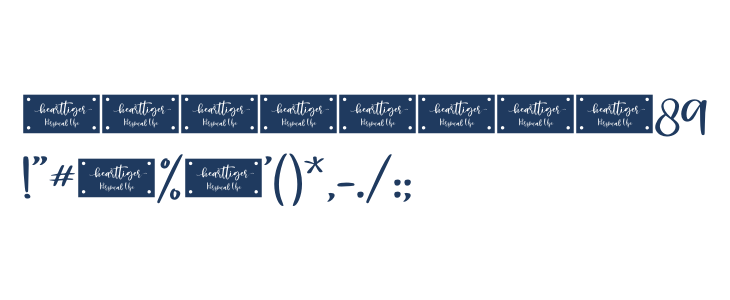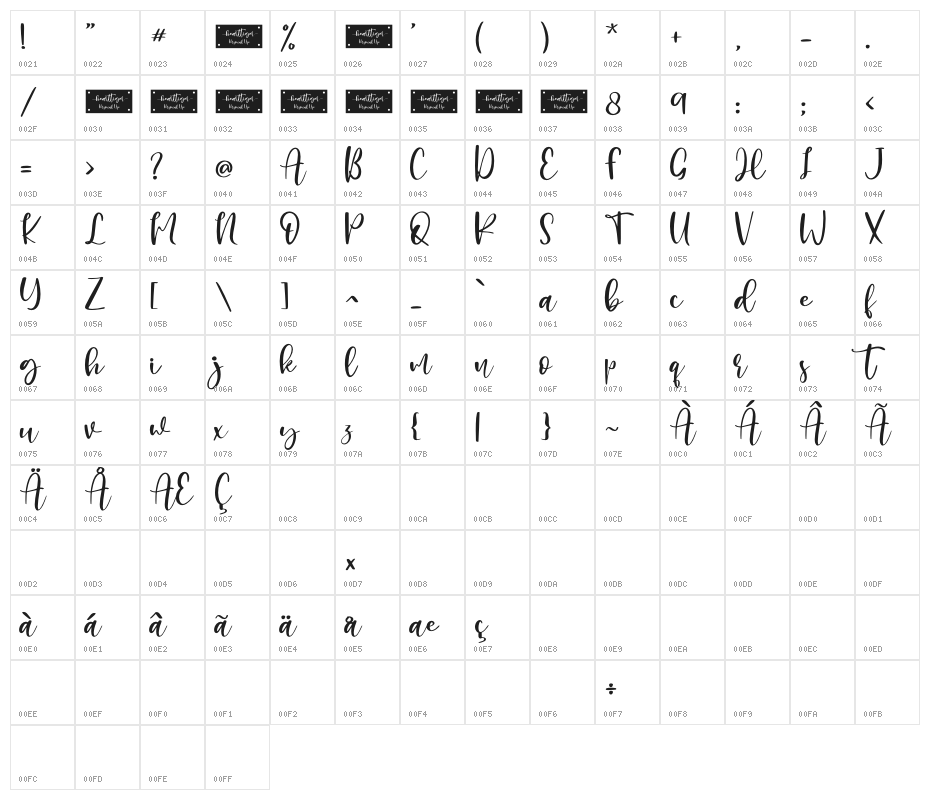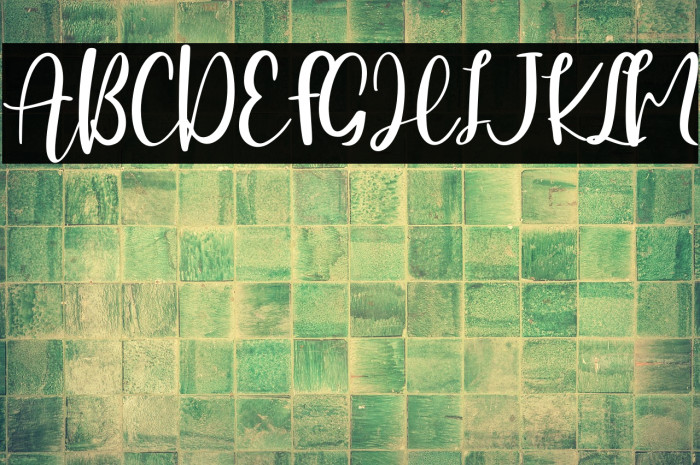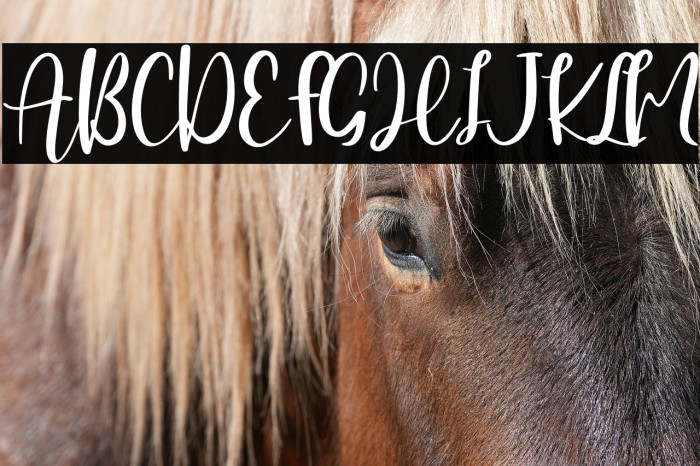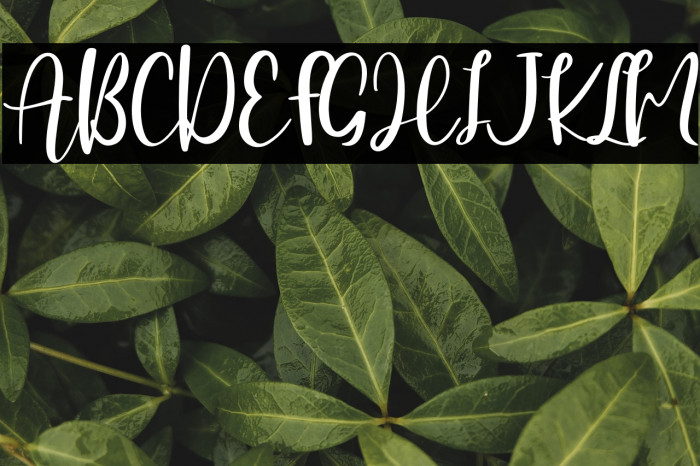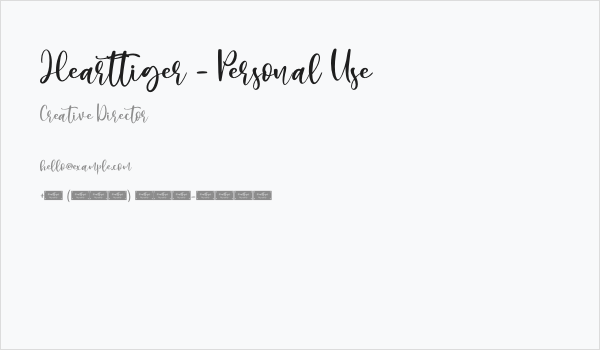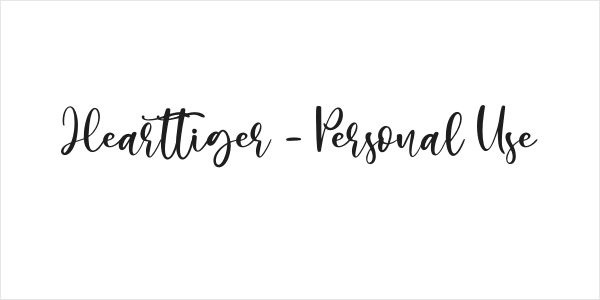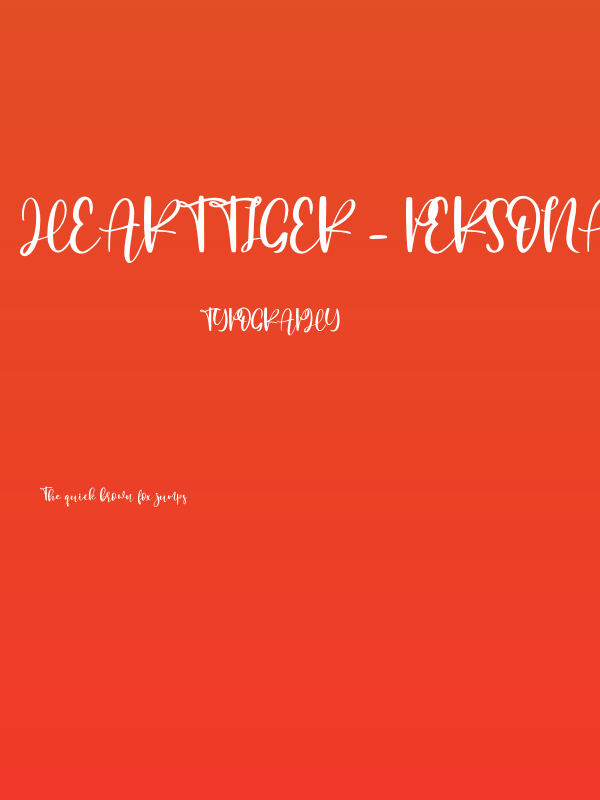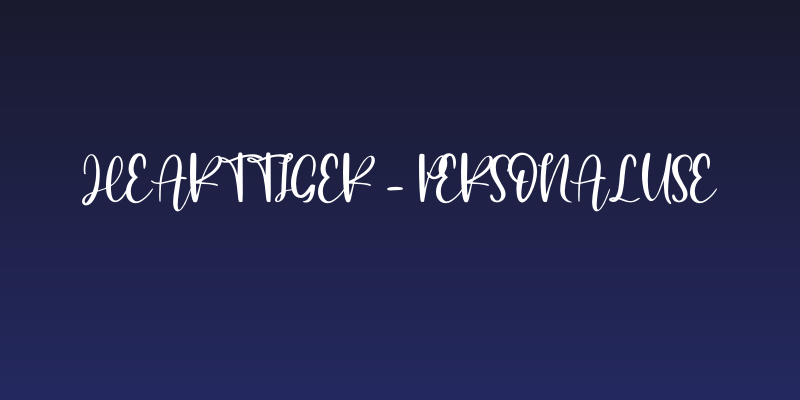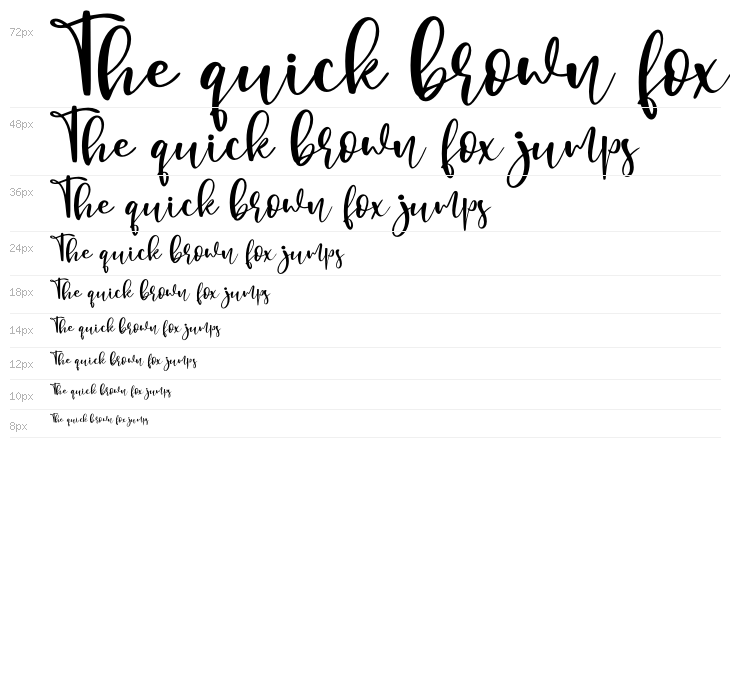
Hearttiger - Personal Use Font
Hearttiger - Personal Use Description
This font features a lively and expressive script style with a handwritten appearance. The letters are connected with smooth, flowing strokes, giving it a dynamic and elegant look. The uppercase letters are bold and prominent, while the lowercase letters maintain a consistent flow with occasional flourishes. The numerals and special characters are designed to match the overall aesthetic, providing a cohesive look. This font is perfect for projects that require a personal touch, such as invitations, greeting cards, and branding materials.
| Proposed Projects | Ideal for invitations, greeting cards, branding, and personal projects. |